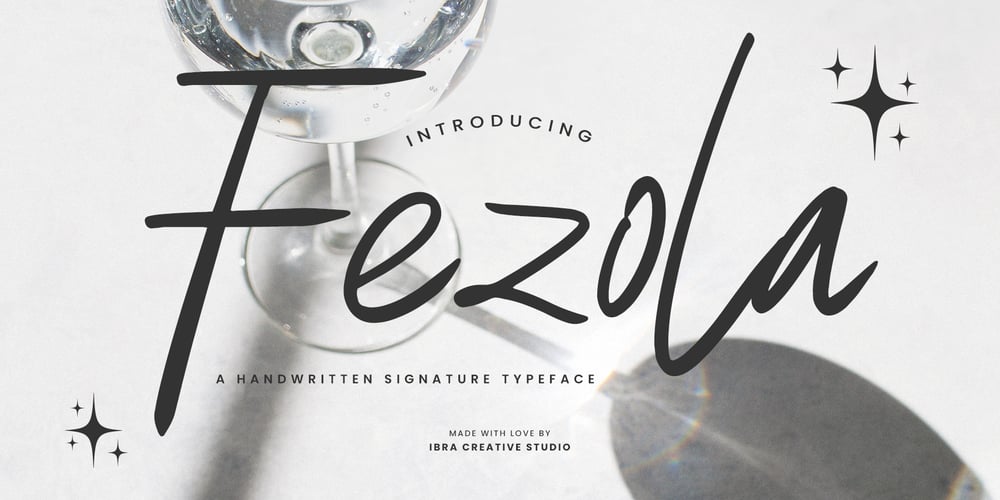
Fezola Font Family was designed by Roisatul Azizah and published by IbraCreative. Fezola contains 1 styles and family package options. Fezola, a handwritten signature typeface, epitomizes the essence of personalized elegance. With its fluid strokes and graceful curves, Fezola captures the artistry of a handcrafted signature, infusing a sense of individuality into every letter. The seamless connectivity between characters emulates the natural flow of a pen, creating a signature style that feels authentic and unique. Whether used for branding, invitations, or personal correspondence, Fezola adds a touch of sophistication and warmth, transforming words into a visual representation of personal expression. This typeface transcends conventional fonts, embodying the charm and character of a handwritten signature to impart a distinctive and memorable quality to any project it graces.